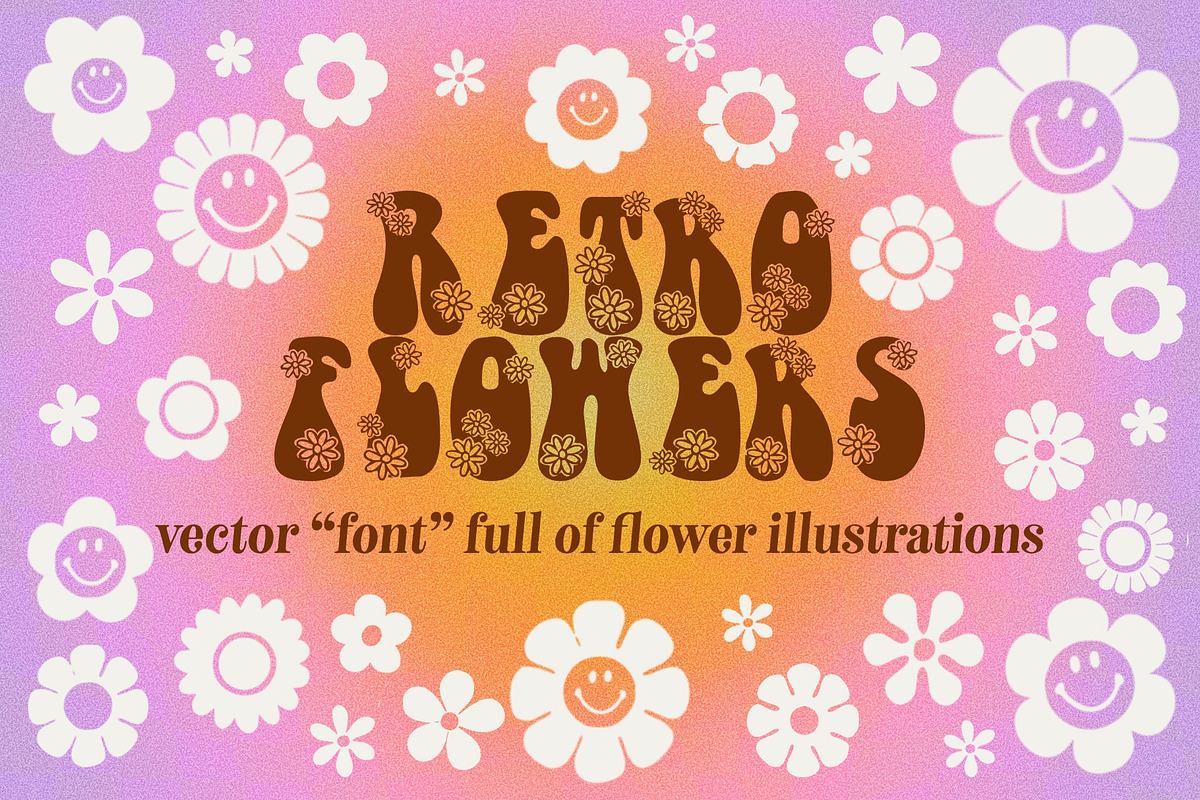
Retro Flowers Illustration Font Free Download is a creative and vibrant typeface that combines bold typography with beautiful floral illustrations. Perfect for designs that need a vintage, whimsical touch, this font is ideal for logos, posters, invitations, social media graphics, and any project that calls for a retro, nature-inspired aesthetic.
Retro Flowers Illustration Font Free Download adds a playful, nostalgic feel to your typography, making it perfect for spring-themed designs, floral branding, or anything that needs a pop of color and personality. Whether you're designing a vintage-inspired logo or creating a fun invitation, this font brings life and energy to your work. Download it today and infuse your designs with the creative charm of Retro Flowers!